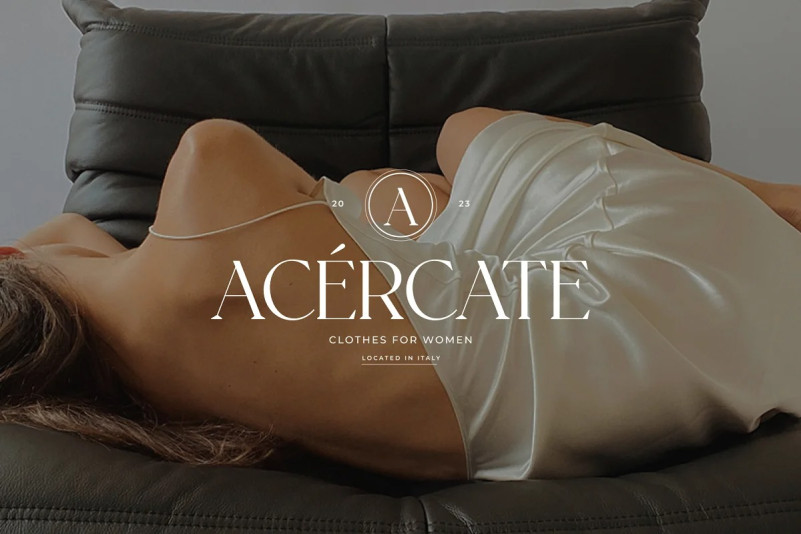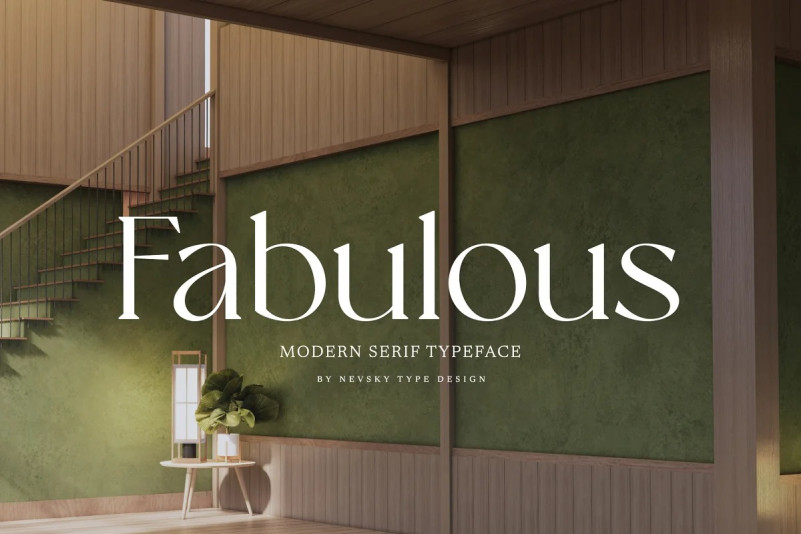
NT Fabulous Font
NT Fabulous Serif Font is a new serif font. This elegant font needs to be in your collection and is perfect for your next luxury design project.
NT Fabulous supports over 200 Latin-based languages.